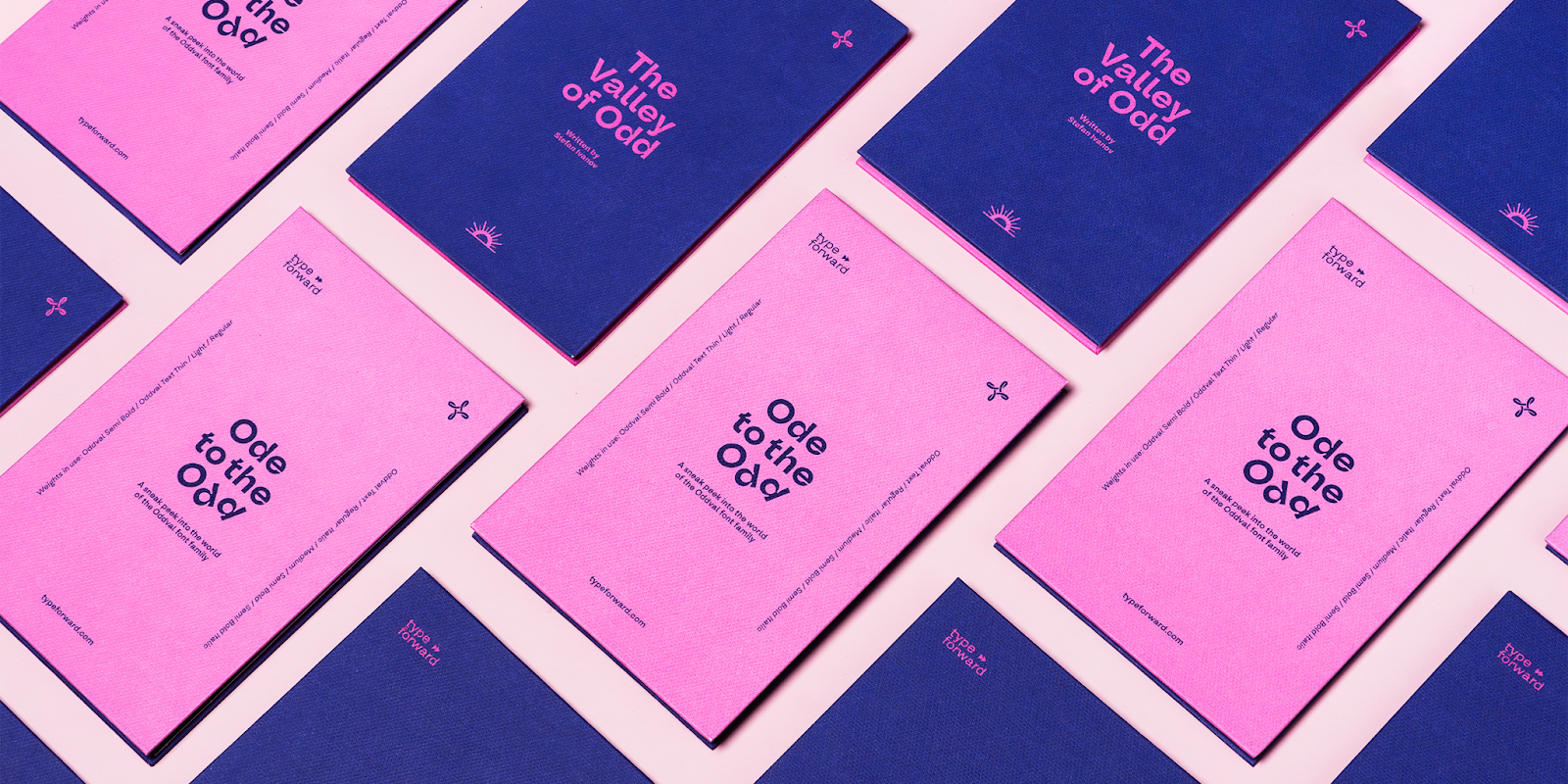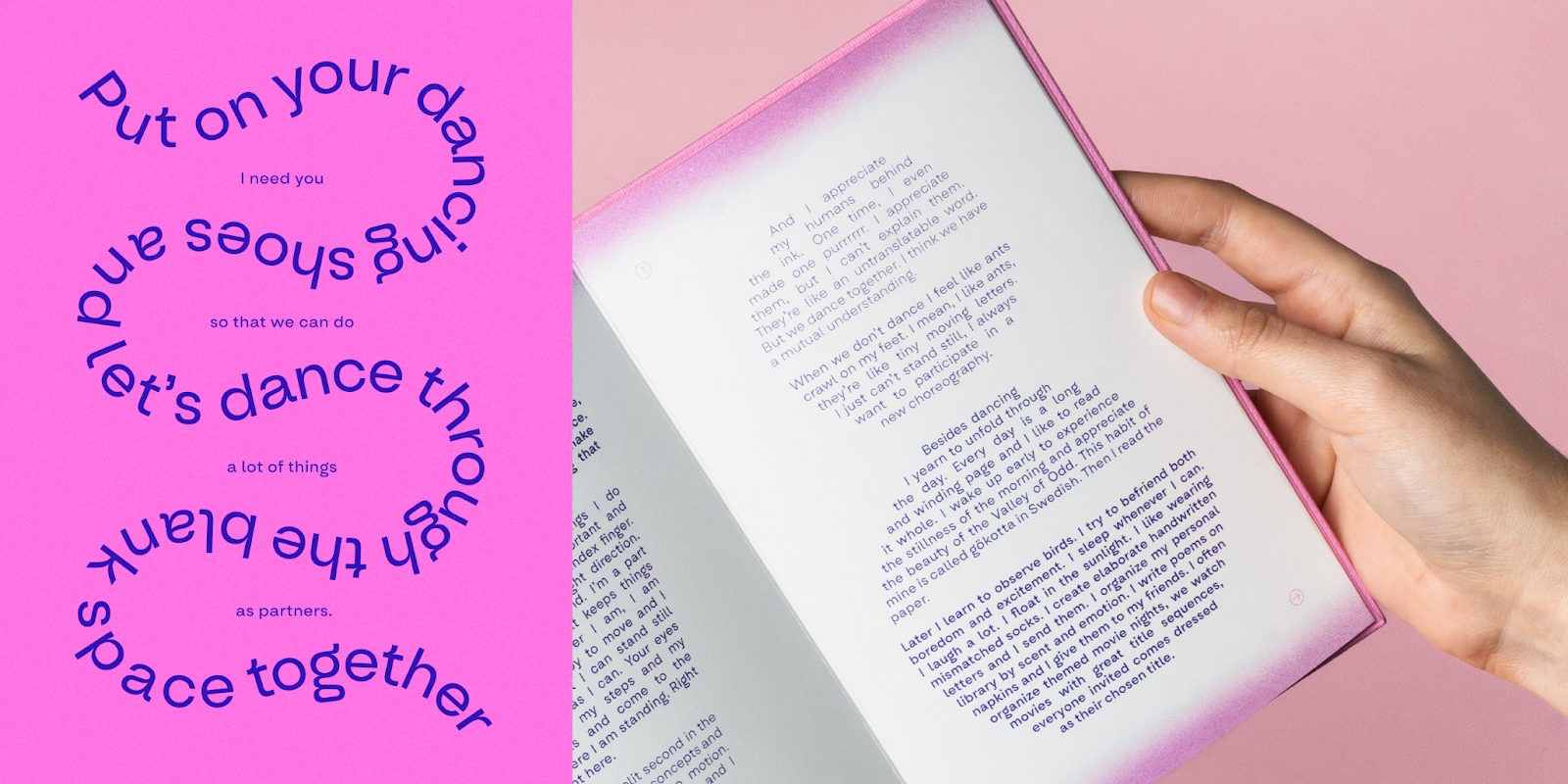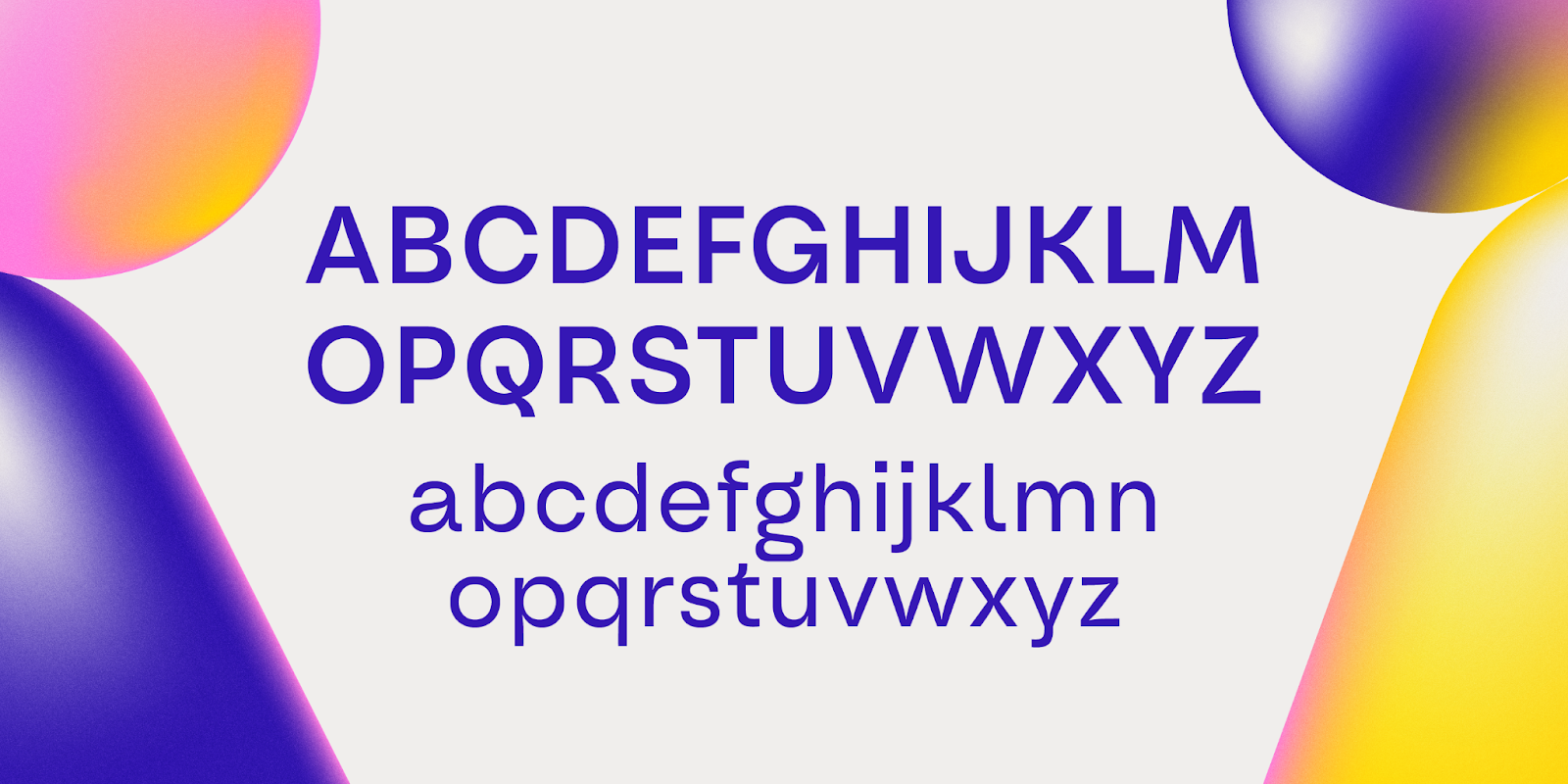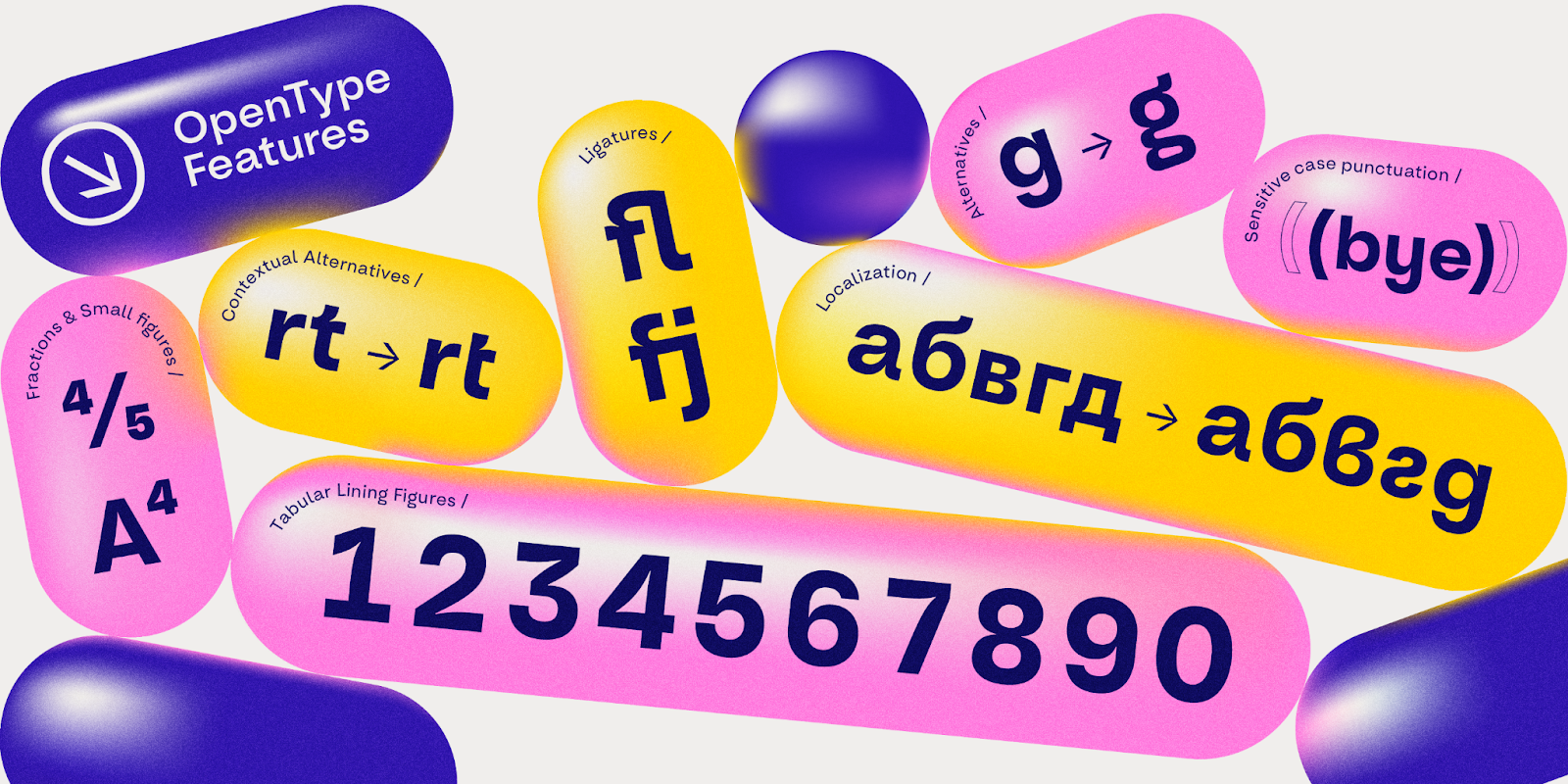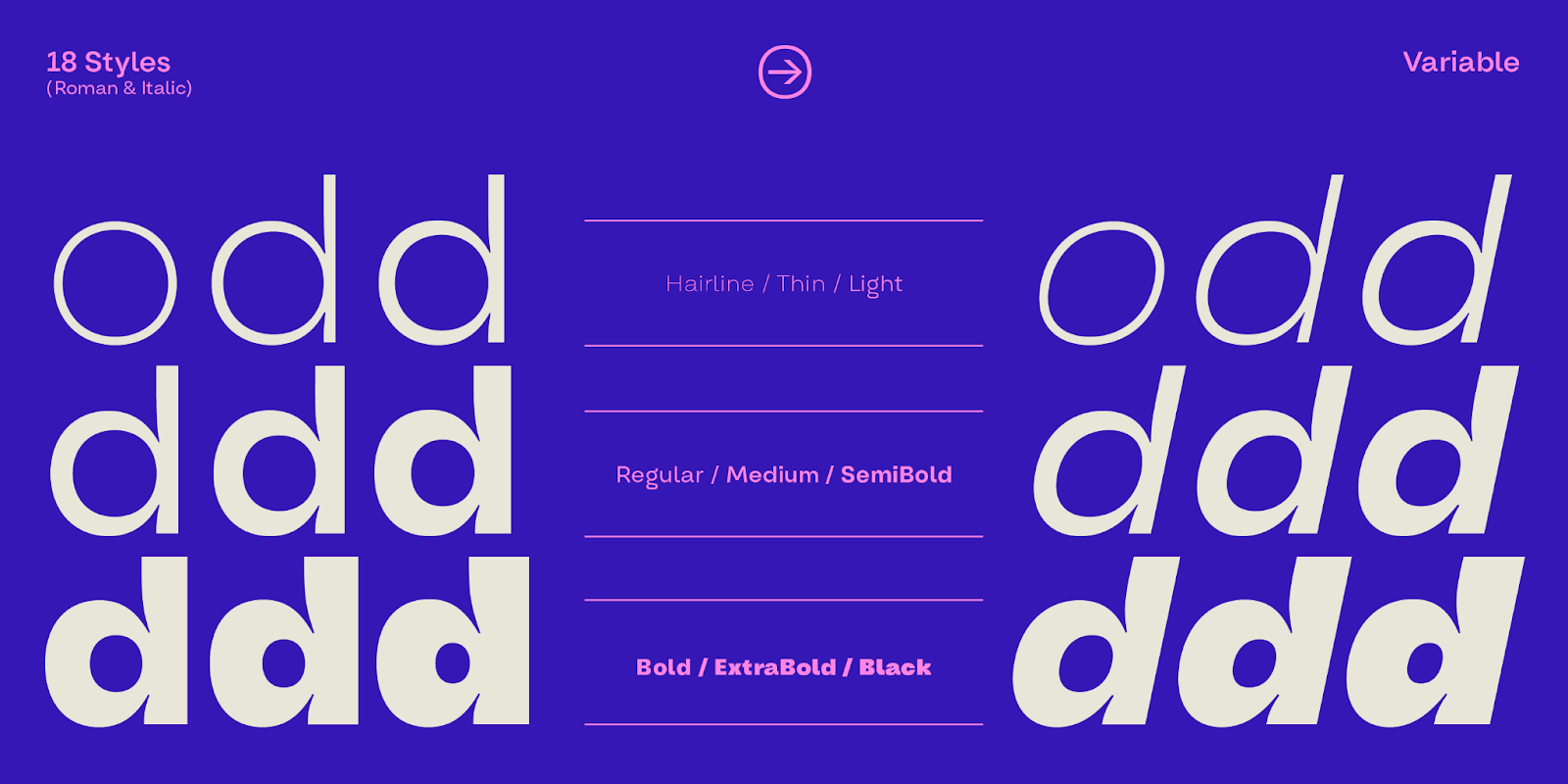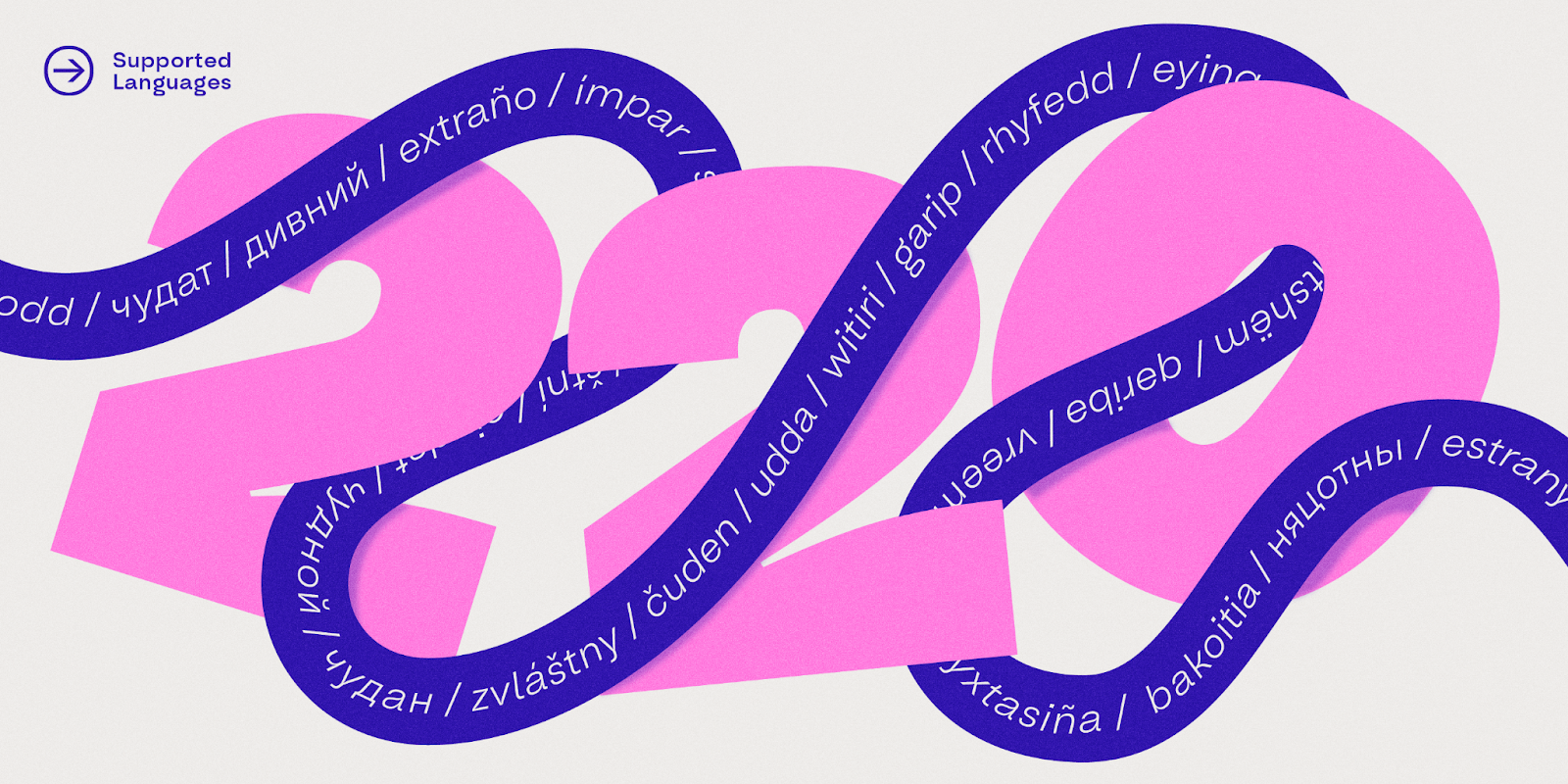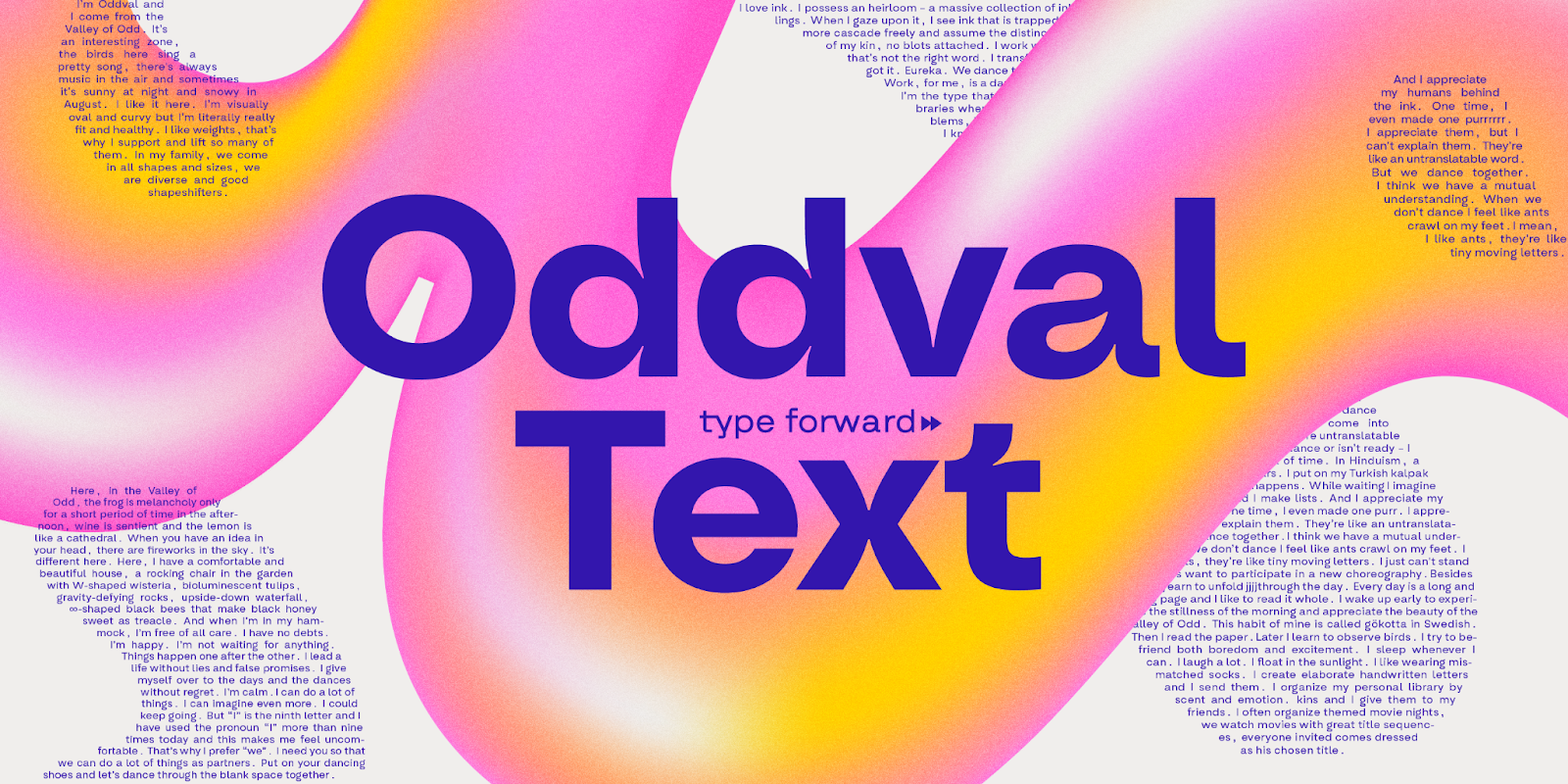
Oddval Text Typeface: Enhancing Typography & Font Design
Explore Oddval Text, a font family improving legibility for web and print, supporting over 220 languages with advanced typography related features.
In today's digital landscape, typography remains a cornerstone of design, blending aesthetics with practicality. Among the latest innovations, Oddval Text emerges as a noteworthy addition to the Oddval Font Family. This extension not only enhances legibility in smaller sizes but also retains the unique aesthetic of its predecessor. Designed with a keen eye for detail by Studio FourPlus, Oddval Text offers a versatile solution for both web and print mediums.
Oddval Text is crafted to serve a global audience, boasting support for over 220 languages, including Extended Latin, Cyrillic, and Greek scripts. This wide-reaching compatibility is complemented by an extensive set of typographic features such as ligatures, stylistic sets, and contextual alternates. These elements enable designers to tackle complex typographic challenges with ease, making Oddval Text an indispensable tool in any designer's arsenal.
The typeface offers two free weights, Oddval Text SemiBold and SemiBold Italic, providing designers with flexible options for their projects. Its design excellence shines in environments that demand heavy text usage, from lengthy editorial content to bold headlines, logos, and branding applications. Oddval Text's distinctive letter shapes and readability enhance any layout, ensuring clarity and visual appeal across various applications.
The collaboration behind Oddval Text's showcase, featuring talents such as Mirela Belova, Stan Partalev for type design, and Tsvetislava Koleva for creative direction and graphic design, highlights the collective effort to present the typeface in its best light. The animation team, led by Jelio Dimitrov, Rumena Petrova, and Vess Blackstone, adds dynamism to the presentation, further illustrating the font's versatility.
Oddval Text stands as a testament to the power of thoughtful design in bridging the gap between readability and stylistic expression. Its contribution to the design community extends beyond mere aesthetics, offering a functional, comprehensive typographic solution that enriches both web and print design. As we continue to explore the boundaries of typography, Oddval Text sets a new benchmark for what fonts can achieve in enhancing communication and design.